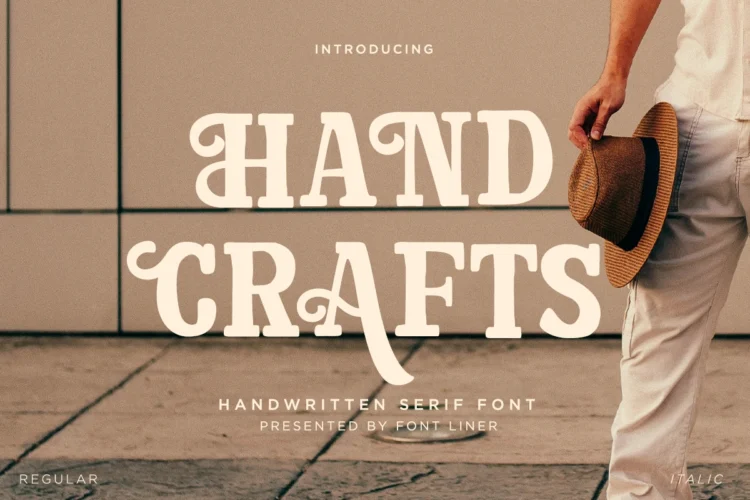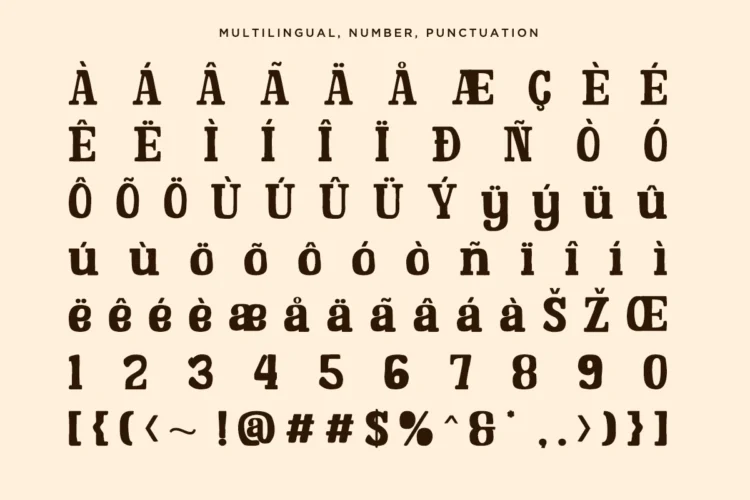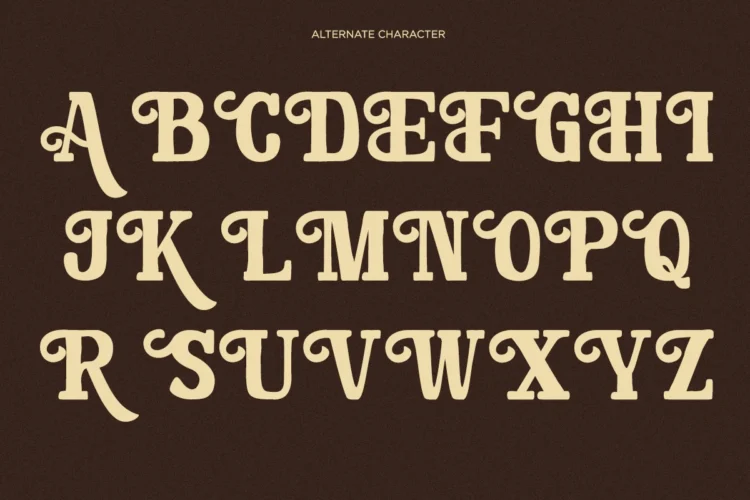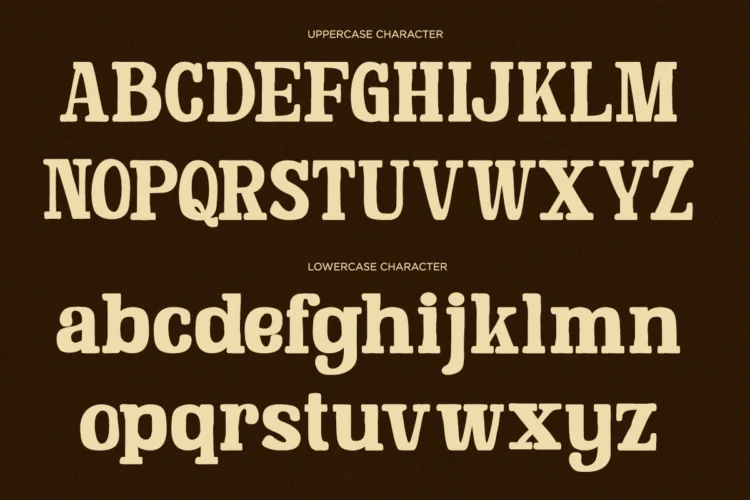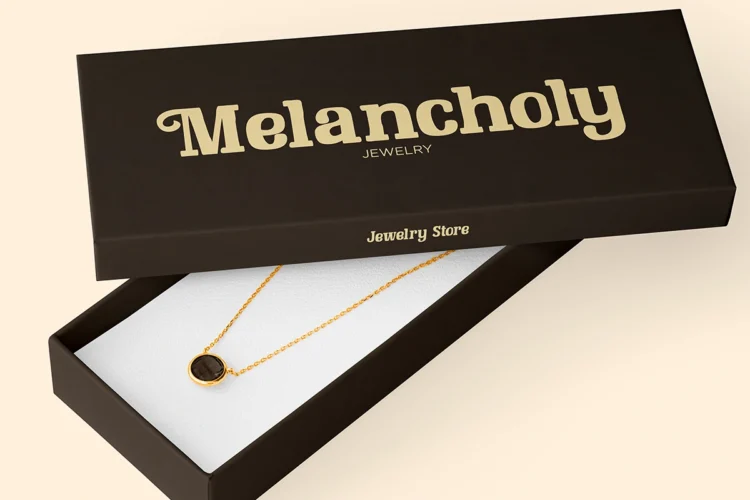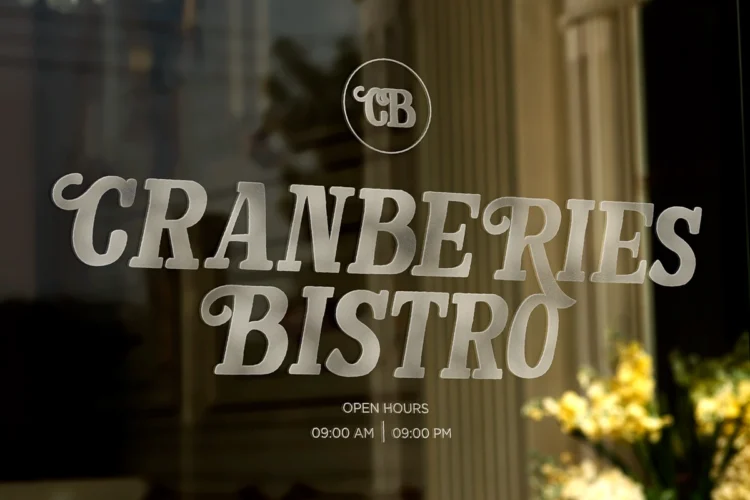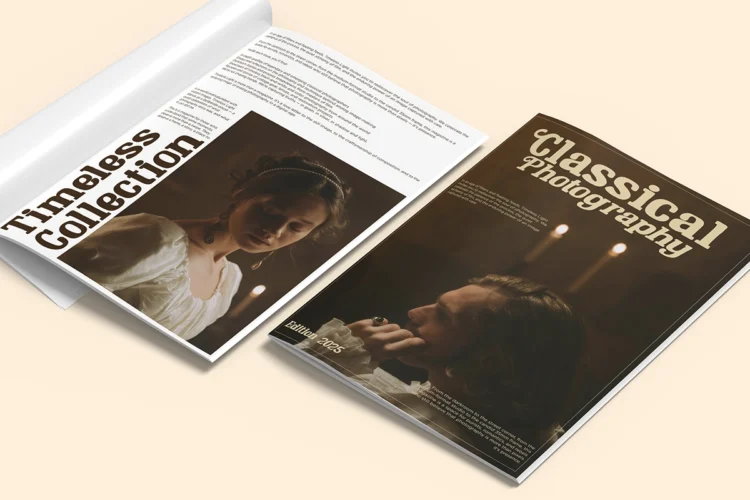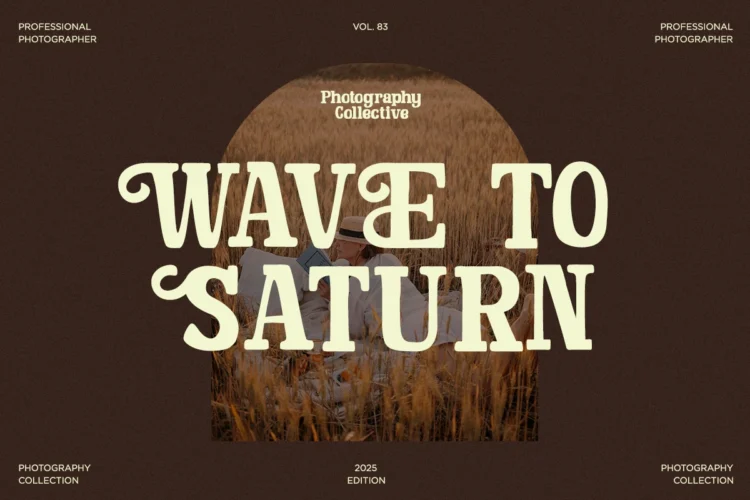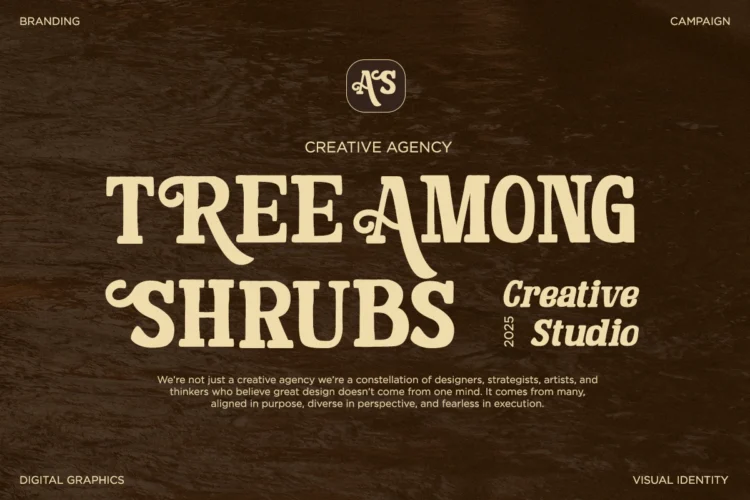
Hand Crafts
Hand Crafts Italic
Hand Crafts is organic hand-written serif style, come with regular and italic, which is perfect for your designs that want a rough style, modern vintage, elegant, soft, and carefully crafted for all graphic design need, to create a font that has that wonderful handmade goodness!
- Stylistic Alternates
Hand Crafts – Script Font